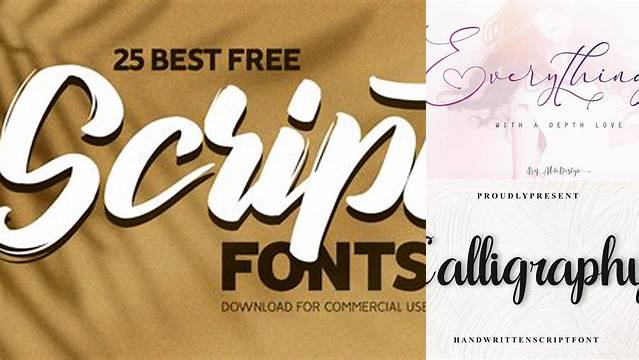
Free Script Calligraphy Fonts: Download & Elevate Your Design
Hey guys! Ever wanted to add a touch of elegance and personality to your designs? Well, look no further! This article is all about script calligraphy fonts free download and how they can totally transform your projects. We're diving deep into the world of beautiful, flowing letterforms, and the best part? You can get a bunch of them without spending a dime! Get ready to discover some amazing fonts and learn how to use them to make your work stand out. Let's get started!
1. What Exactly Are Script Calligraphy Fonts?
So, what exactly are script calligraphy fonts? Think of them as the digital versions of handwriting, mimicking the strokes and flourishes of traditional calligraphy. These fonts are designed to look like they've been written with a pen, brush, or other calligraphy tools. They often feature connected letters, elegant curves, and a sense of movement that adds a sophisticated touch. These fonts are more than just text; they're artistic expressions. Imagine them as digital artists' brushstrokes, each one unique and designed to evoke certain feelings. From romantic wedding invitations to stylish logos, script calligraphy fonts can add a personalized, handcrafted feel to almost any project. The beauty of these fonts lies in their versatility. They're perfect for both formal and informal designs, and they can be adapted to suit a wide range of styles. Whether you're aiming for a classic, vintage look or a modern, minimalist aesthetic, there's a script calligraphy font out there that will fit the bill. The best part? There's a wide variety of these fonts available for a script calligraphy fonts free download, so you can experiment with different styles until you find the perfect one for your project. Remember, the right font can make all the difference, so take your time and explore the options. You might find a font that perfectly captures your brand's personality or the essence of your message.
2. The Benefits of Using Script Calligraphy Fonts in Your Designs
Using script calligraphy fonts free download can bring a multitude of benefits to your design projects. Firstly, it adds a touch of sophistication and elegance that can instantly elevate your brand or message. These fonts often have a handwritten quality that feels more personal and authentic, making your audience feel more connected. They can also create a visual hierarchy. The use of script fonts can make certain text elements stand out and create a focal point, drawing the eye to the most important information. Consider using them for headlines, titles, or important call-to-actions. The versatility of script fonts is another significant advantage. They can be used in various design projects, from wedding invitations and greeting cards to logos, websites, and social media graphics. They offer a level of creative freedom that can help you express your brand's identity and style. Furthermore, using script fonts can improve readability. While some script fonts might be more decorative than others, well-designed scripts are often easy to read, especially when used in headlines or short text passages. This is crucial for grabbing your audience's attention and communicating your message effectively. Ultimately, the use of a good script calligraphy fonts free download can enhance your designs and contribute to the overall aesthetics of your project. They make your designs more visually appealing, memorable, and unique. You might also want to try different effects, such as shadows, outlines, or textures, to make the fonts more visually engaging.
4. Popular Script Calligraphy Fonts You Can Download for Free
Let's dive into some specific font recommendations. You can find many wonderful options for a script calligraphy fonts free download. For a classic and elegant feel, consider Great Vibes. It’s a popular choice, known for its graceful letterforms and excellent readability. It's suitable for wedding invitations, logos, and branding projects. Next, Dancing Script is a delightful option with a playful and lighthearted style. It’s perfect for casual designs like greeting cards, social media graphics, and blog headers. Then there’s Playlist Script, a more modern take on a script font. Its versatility allows it to be used in various contexts, from websites to product packaging. For a slightly more edgy look, check out Satisfy. This font has a bolder, more pronounced style. It’s a great choice for headlines and attention-grabbing design elements. Don’t forget Yellowtail, a charming font with a vintage vibe. It’s perfect for designs that aim to evoke a sense of nostalgia or warmth. Always read the font licensing information to ensure its permitted use for your project. Consider the overall style of your project and what kind of message you're trying to communicate. Remember, the right font can significantly impact your design's success. These font recommendations offer a fantastic starting point for exploring the world of free script calligraphy fonts. Remember to test out different fonts to see which ones best suit your design needs and personal preferences.
5. Tips for Using Script Calligraphy Fonts Effectively
Using script calligraphy fonts free download in your designs can be a game-changer, but it's important to do it right. Here are some tips to help you get the most out of these fonts: First, consider readability. While script fonts look beautiful, some can be challenging to read, especially in large blocks of text. Use them sparingly for headlines, titles, or short phrases where readability is key. Next, choose the right font for the project. Different script fonts have different personalities and are suited to specific design styles. Select a font that complements your overall design and conveys the right tone. Then, pay attention to kerning and spacing. Script fonts often require careful kerning (the space between individual letters) to ensure they flow correctly. You may need to manually adjust the spacing to avoid awkward gaps or overlapping letters. Also, mix and match with other fonts. Don't be afraid to pair a script font with a simple sans-serif or serif font to create contrast and balance. This will make your design more visually interesting. Always, ensure the script font complements the visuals. The font should visually integrate into your graphic style. Finally, test it in different contexts. See how your chosen script font looks at different sizes, on different backgrounds, and in various design applications. This will help you identify any potential issues and make necessary adjustments.
####### 6. Best Practices for Pairing Script Fonts with Other Fonts
Pairing a script calligraphy fonts free download with other fonts is an art form. It's about creating a balance that complements the design while enhancing readability. One effective strategy is pairing the script font with a clean, simple sans-serif font. The sans-serif provides a clear, easy-to-read contrast to the decorative script, making the design visually appealing. Using serif fonts is also great, but it requires a bit more care. Make sure the serif font doesn't clash with the script font's style. Experiment with combinations and see what works best. Always aim for a balance of visual interest and readability. Consider using different weights and sizes for the paired fonts to create a visual hierarchy. A bold, larger script font paired with a lighter, smaller sans-serif font for body text is a common technique. Avoid pairing script fonts with other overly decorative fonts, as this can make the design cluttered and difficult to read. Instead, opt for simplicity and clarity. Keep the overall design in mind and ensure the fonts complement the brand or message. The fonts should enhance your brand identity instead of overshadowing it. Take your time, experiment with different combinations, and see what works best for your design. With a little practice, you'll be able to create stunning designs that capture the viewer's attention and convey your message effectively.
######## 7. Designing Logos with Free Script Calligraphy Fonts
Designing a logo with a script calligraphy fonts free download can be an excellent way to add personality and elegance. First, select the right font. The font should reflect the brand's personality and values. Consider the style you want to convey, such as classic, modern, or vintage. Next, simplify the design. A logo should be memorable and easy to recognize, so avoid complex designs that might be hard to reproduce. Make sure the font is legible at different sizes. Logos are often used in various contexts, from business cards to websites. Ensure the logo remains readable even when scaled down. Consider the overall balance of the design. The script font should be visually integrated with any other elements in the logo. Experiment with different layouts and compositions to see what looks best. Pay attention to kerning and spacing. Fine-tuning the spacing between letters can greatly enhance the logo's appearance. Choose a color palette that complements the font and brand identity. The colors should enhance the overall design and convey the right message. Always get feedback on your logo design. Ask others for their thoughts and opinions to ensure it resonates with the target audience. The logo should be versatile and look good in various applications. Testing your logo in different environments is also essential. Remember that a well-designed logo with a script font can make a lasting impression on your target audience. It can also enhance brand recognition and set you apart from the competition. So, get creative and let the script font bring your logo to life.
######### 8. Using Script Fonts in Website Design
Incorporating a script calligraphy fonts free download into your website design can add a touch of elegance, but it also requires careful consideration. Firstly, focus on the user experience. The website should be easy to navigate and aesthetically pleasing. Use script fonts for headlines, titles, or short text passages to add visual interest. But be mindful of readability. Use a sans-serif font for the body text to ensure visitors can easily read the content. Balance is key. Pairing a script font with a clean, simple font can create a visually appealing design. Use script fonts sparingly. Avoid using them excessively, as this can make the website look cluttered. Ensure the script font is responsive. It should display well on all devices, from desktops to smartphones. Optimize the website for fast loading times. Slow-loading websites can negatively impact user experience and search engine rankings. Consider the overall design. The script font should complement the website’s design and brand identity. Prioritize accessibility. Ensure the website is accessible to everyone, including those with disabilities. Test the website on different browsers and devices. Websites should be compatible across various platforms. The use of script fonts in web design can significantly enhance the visual appeal of your website, making it stand out and leave a memorable impression. However, the use of script fonts should be handled with care to ensure readability and usability.
########## 9. Script Fonts for Wedding Invitations and Stationery
Wedding invitations and stationery are the perfect canvas for a script calligraphy fonts free download. These fonts add a romantic and elegant touch, setting the tone for the special event. Select a font that complements the wedding theme and style. Consider fonts with flowing letterforms that evoke a sense of grace. Use the script font for names, dates, and other important details. Ensure the font is legible and easy to read. Pair the script font with a complementary font for the body text. A simple serif or sans-serif font can provide contrast. Pay attention to the layout and design of the invitation. The script font should integrate seamlessly with other elements. Consider using embellishments like monograms, borders, or illustrations to enhance the design. Choose a color palette that complements the wedding theme and the script font. Always proofread the invitation for errors before printing. It's crucial to check for any typos. Ensure the stationery is consistent with the invitations. Match the font and design elements of the invitations with other stationery items. Consider the quality of the paper. High-quality paper can enhance the look and feel of the stationery. The use of script fonts on wedding invitations and stationery creates a lasting impression on guests. It reflects the couple's style and sets the stage for a memorable event.
########### 10. Script Fonts for Social Media Graphics
Social media graphics provide a great opportunity to use a script calligraphy fonts free download. They can make your content more visually appealing and help it stand out. Use the script fonts for headlines, quotes, or captions to grab the audience’s attention. Make sure the font is legible, even when viewed on small screens. Pair the script font with a complementary font for the body text. Keep the design simple and clean. Avoid clutter. Use the font to align with your brand's style and messaging. Consistent branding is key. Consider using the fonts in your brand color palette. Include visual elements, such as images or illustrations, to complement the script font. Make sure the design is optimized for different social media platforms. The graphics should be sized correctly for each platform. Test the graphics before posting them. Preview the graphics on different devices to see how they look. Use the right hashtags. They will improve the content's visibility and engagement. The use of a script calligraphy font can significantly enhance your social media graphics, making them more visually appealing and shareable. It also helps in building a cohesive brand image and driving engagement.
############ 11. Script Fonts and Branding: Creating a Unique Brand Identity
A script calligraphy fonts free download can be a powerful tool for branding, helping to create a unique brand identity. Choosing the right font is crucial, as the font conveys the brand's personality and values. Select a font that aligns with your brand's style and target audience. Ensure the font is consistent across all brand assets. Consistency builds brand recognition. Use the font in your logo, website, social media, and marketing materials. Pairing the script font with other fonts can create a balanced and visually appealing design. The other fonts should complement the script and enhance readability. Always consider your target audience. Your font choice should resonate with your audience. Think about how the font makes the audience feel. The font should communicate the brand's message effectively. When selecting a script font, consider factors such as elegance, playfulness, or sophistication. Your chosen font should create a memorable brand identity, setting you apart from the competition. Experiment with different variations of the font. The font should also be easily recognizable across all platforms and contexts. Consistency is key for building a strong brand identity. Ultimately, the right script font can leave a lasting impression on your audience and help you build a strong brand.
############# 12. Script Fonts for Print vs. Digital Designs: Key Considerations
When using a script calligraphy fonts free download for print versus digital designs, there are key considerations. For print designs, consider the resolution and size of the font. Ensure the font is legible, even in small print sizes. The print medium also plays a role. If you are using glossy paper, you can use more delicate fonts compared to matte paper. In digital designs, screen resolution and display settings impact font rendering. Ensure the font looks good on different devices and screen sizes. Consider the file format you are using, as some formats support fonts better than others. Font rendering can also differ across operating systems and browsers. Therefore, test your design on multiple platforms. For both print and digital designs, licensing is important. Ensure you have the necessary licenses for commercial use. When in doubt, read the font's licensing agreement. Readability is crucial in both types of design. Avoid overly elaborate fonts if the text is small. It’s also crucial to choose a font that complements the overall design. Consider using different variations of the font. Adapt the font to fit the design. By considering these factors, you can effectively use script calligraphy fonts in print and digital designs.